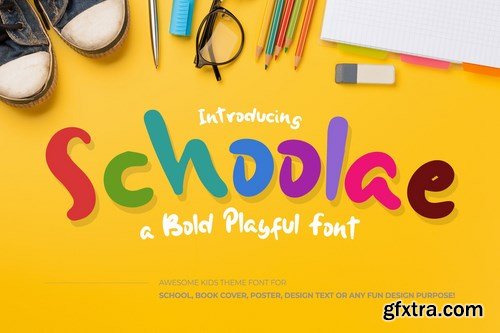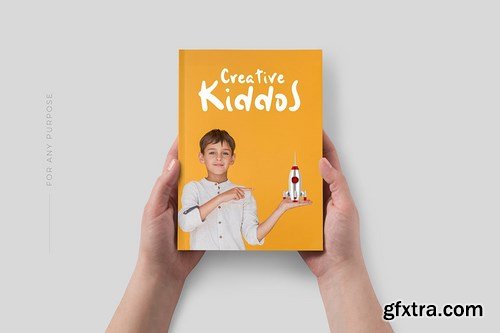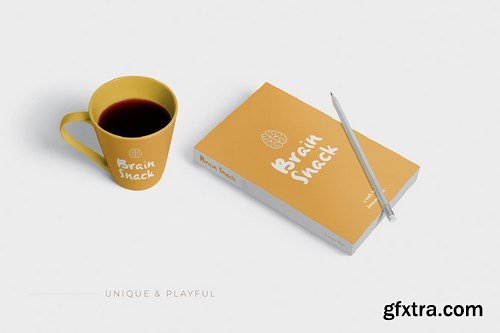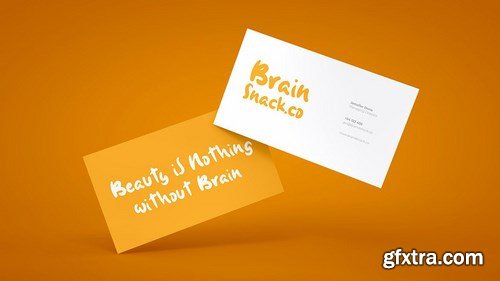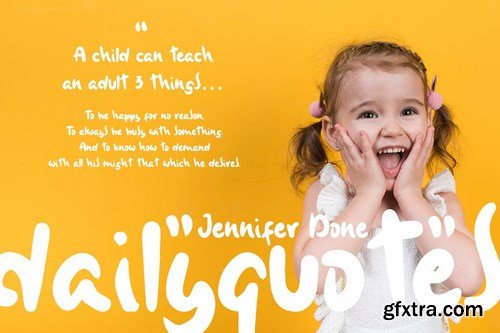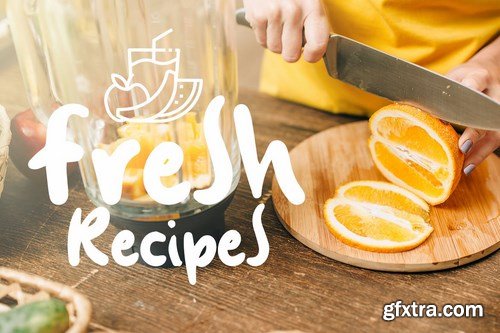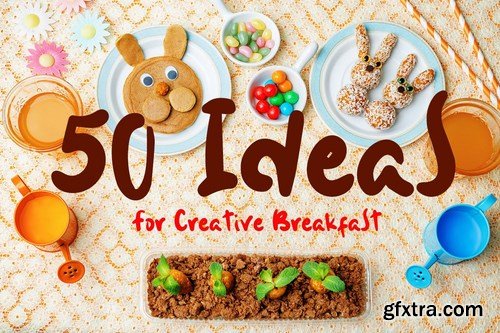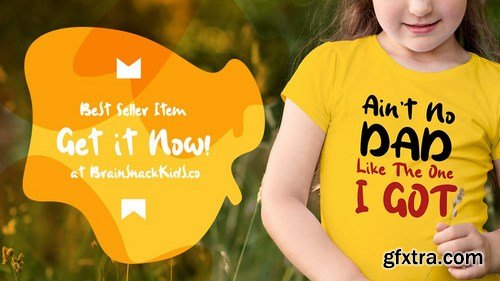
Introducing Schoolae Bold Playful Font
Schoolae is playful dan fun handwriting font. The typeface are BOLD, simple, modern, and easy to read. You can use for any design text purpose such as book cover, school design material, playgroup, even for brand name.